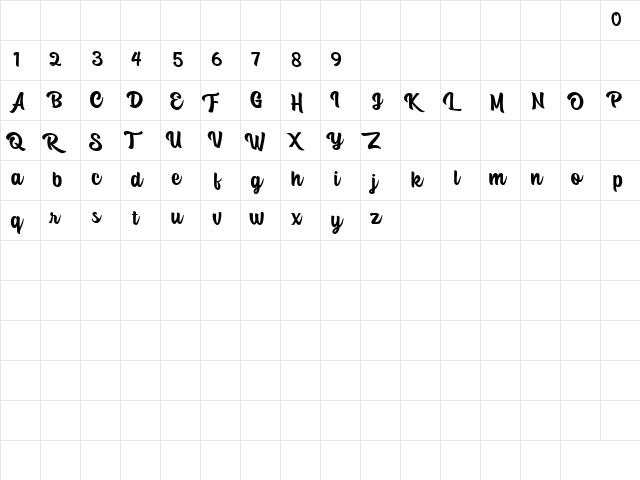
Asking Mind Regular
| Designer | Lettersiro 2017 |
Design Context for Asking Mind Typeface
Asking Mind is a composed and adaptable typeface that performs quietly and consistently across a wide range of design contexts.